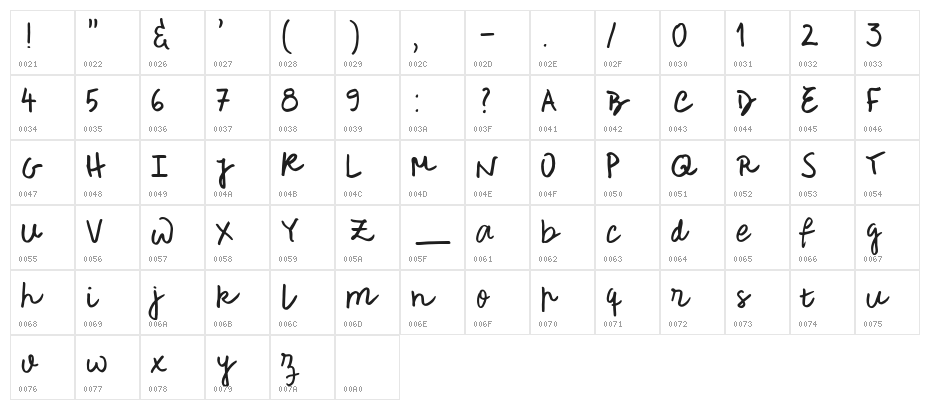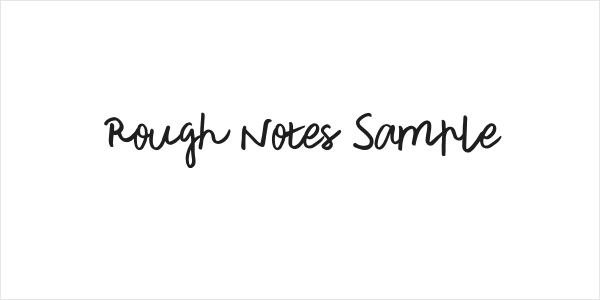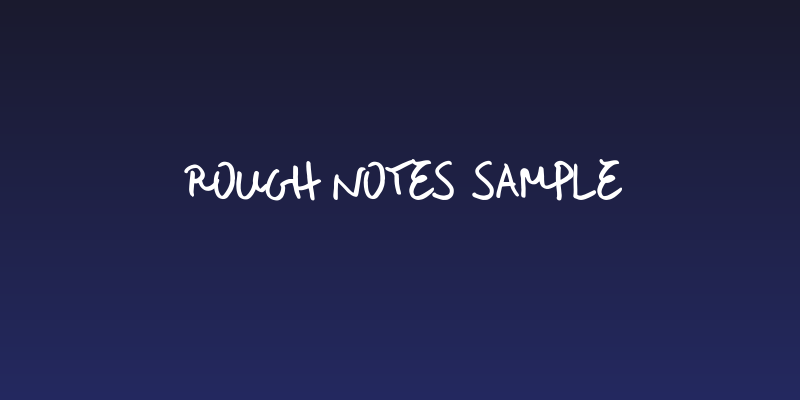
Rough Notes Sample Font
Rough Notes Sample Description
This font features a casual, handwritten style that mimics the look of natural handwriting. The letters are slightly slanted, giving a dynamic and informal appearance. The strokes are uneven, adding to the authentic handwritten feel. The uppercase and lowercase letters maintain a consistent style, with rounded edges and a playful character. Numbers and special characters are also included, matching the overall aesthetic. This font is perfect for projects that require a personal touch or a relaxed, friendly vibe.
| Use Case | Headlines, Informal text, Personal projects |
| Proposed Projects | Ideal for personal notes, greeting cards, invitations, and informal branding. |